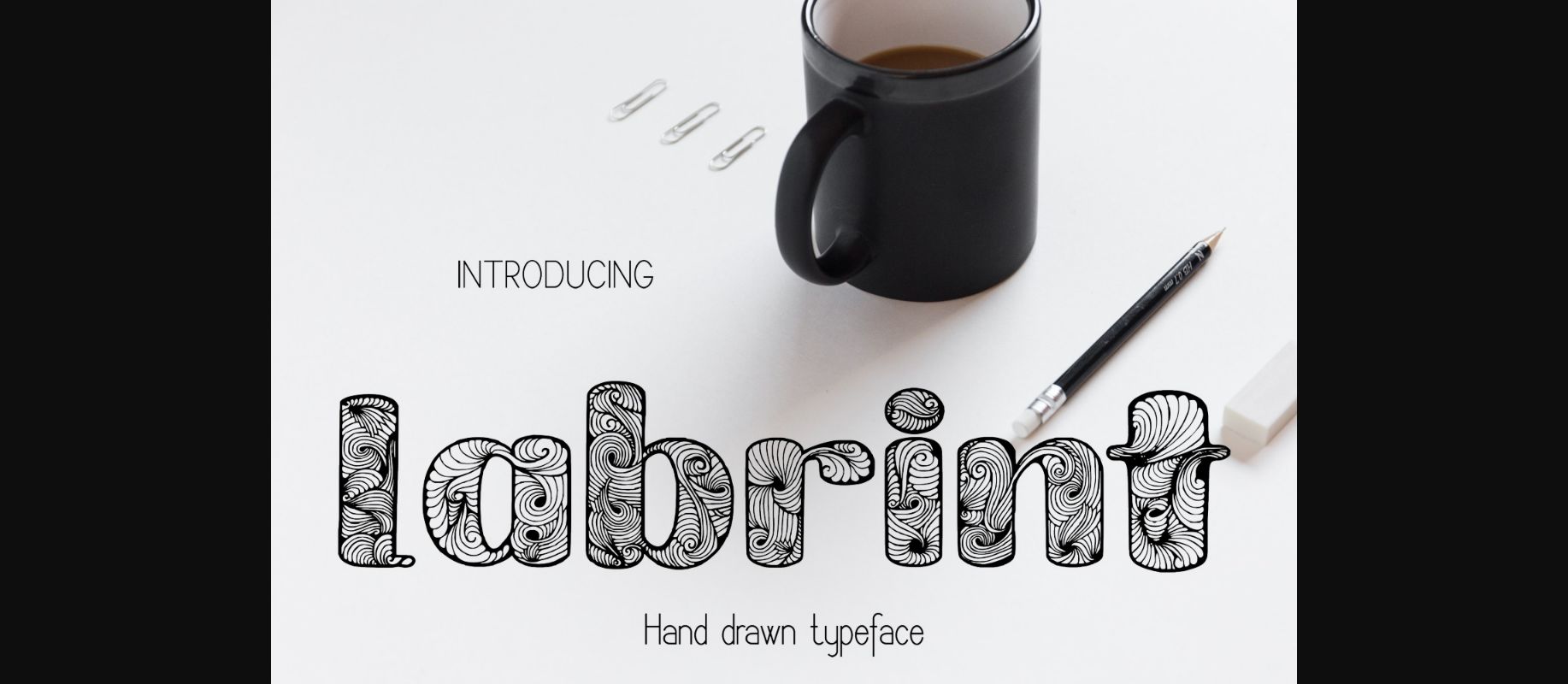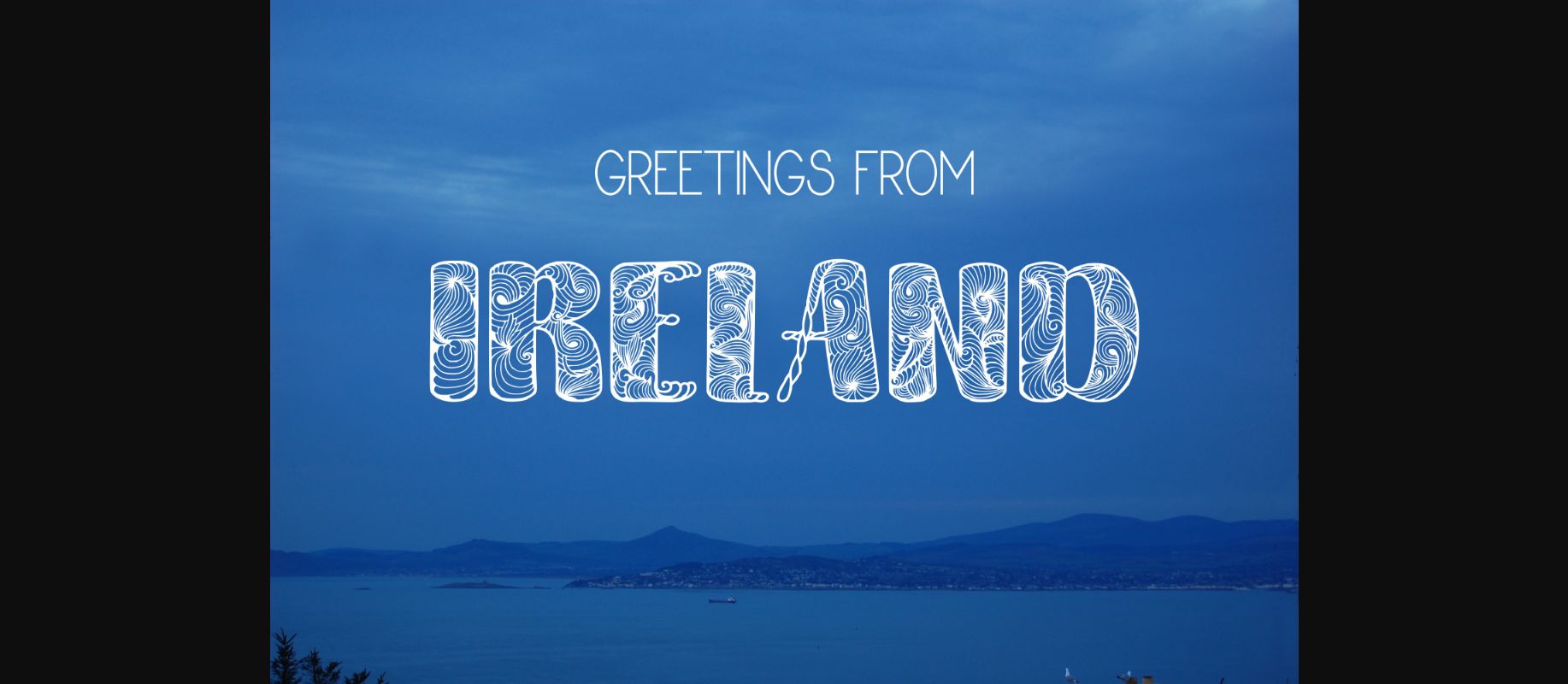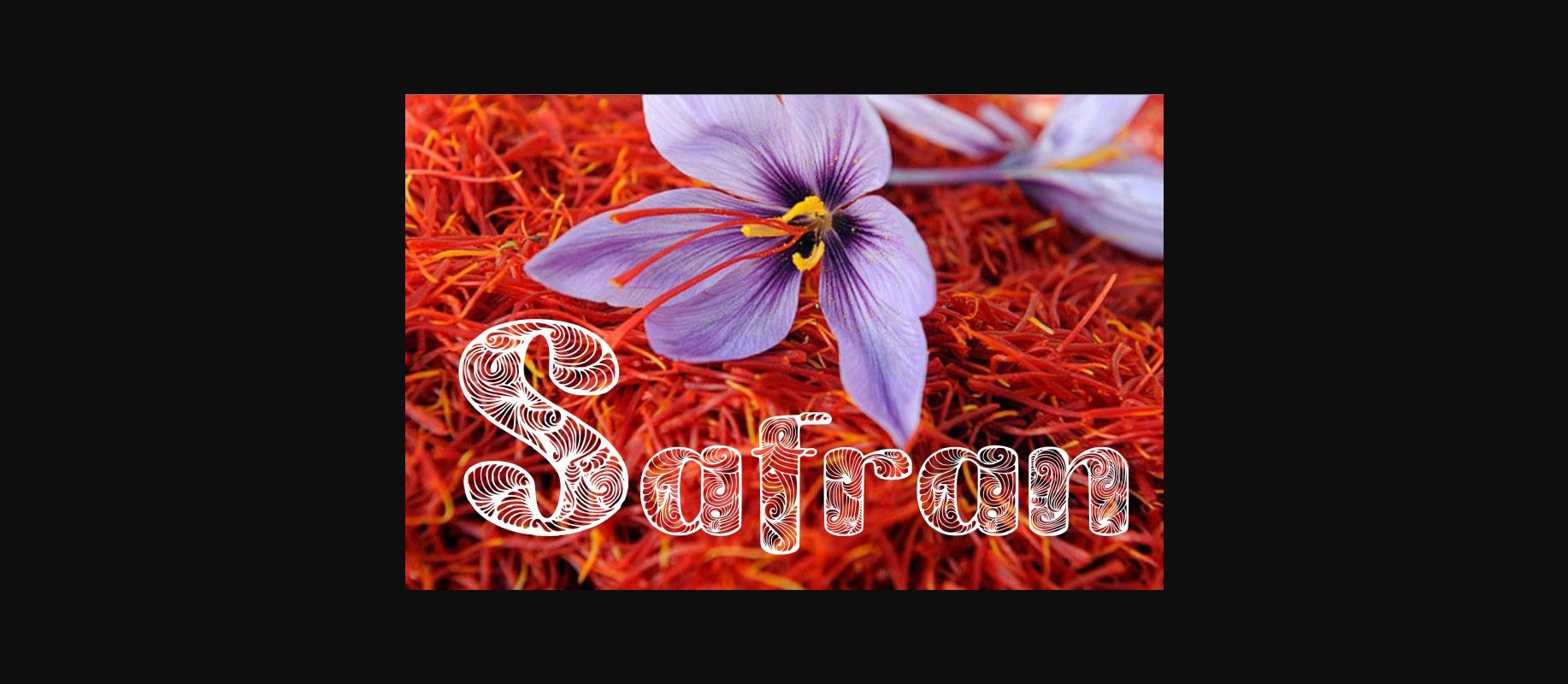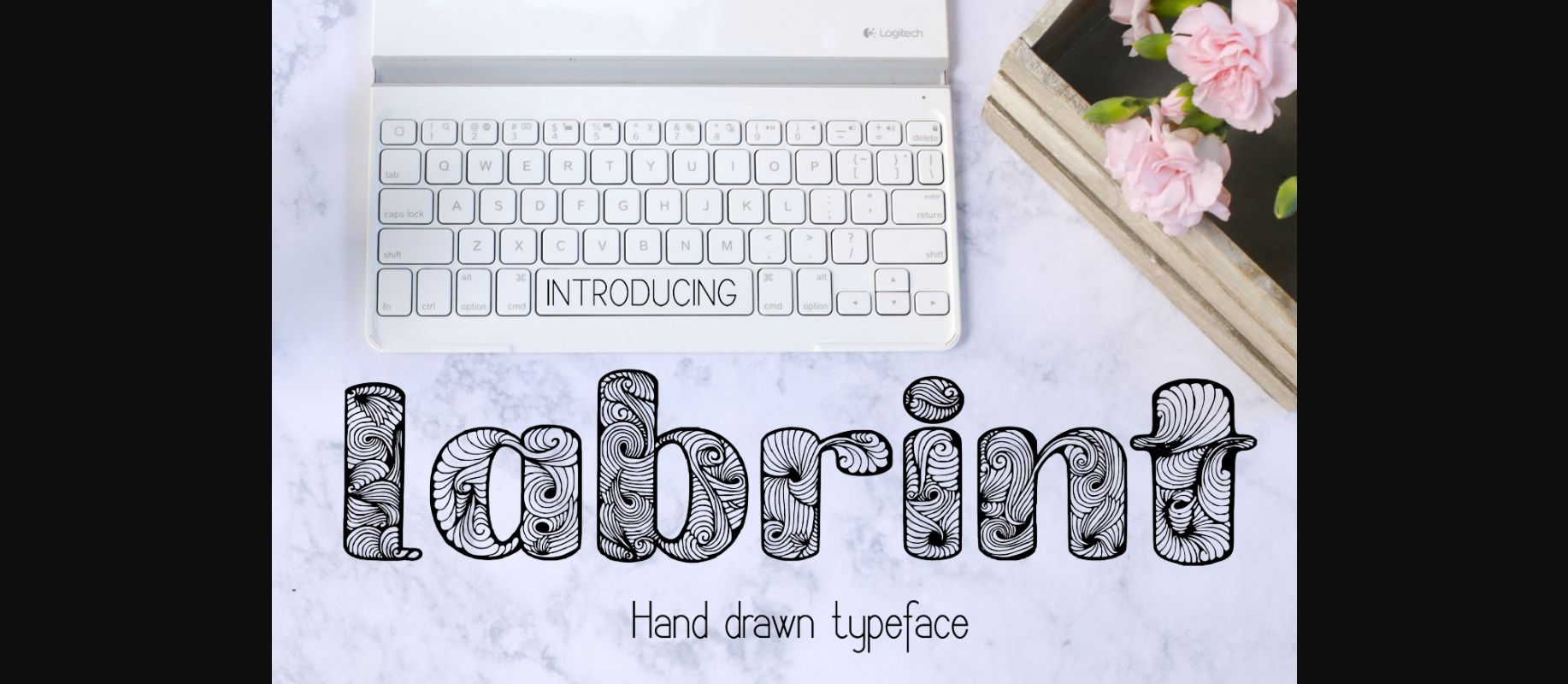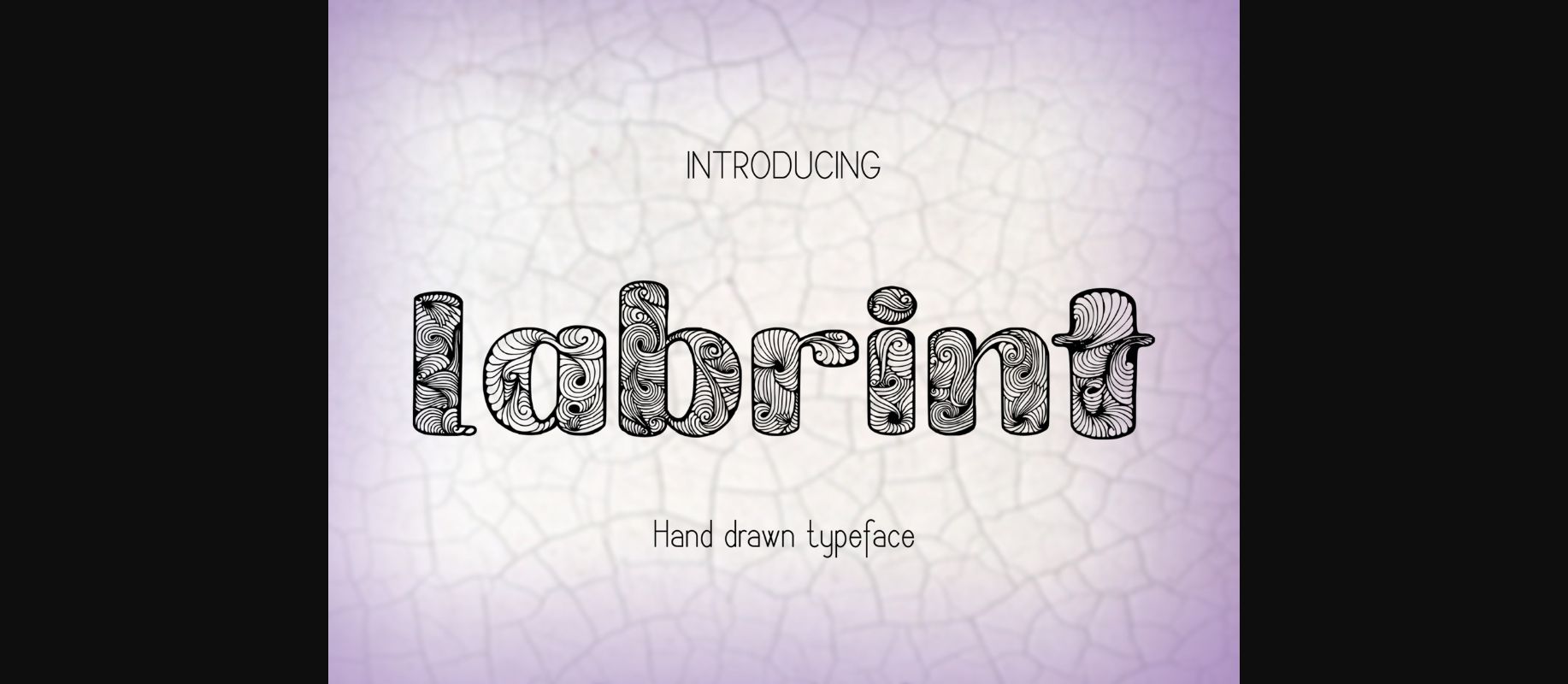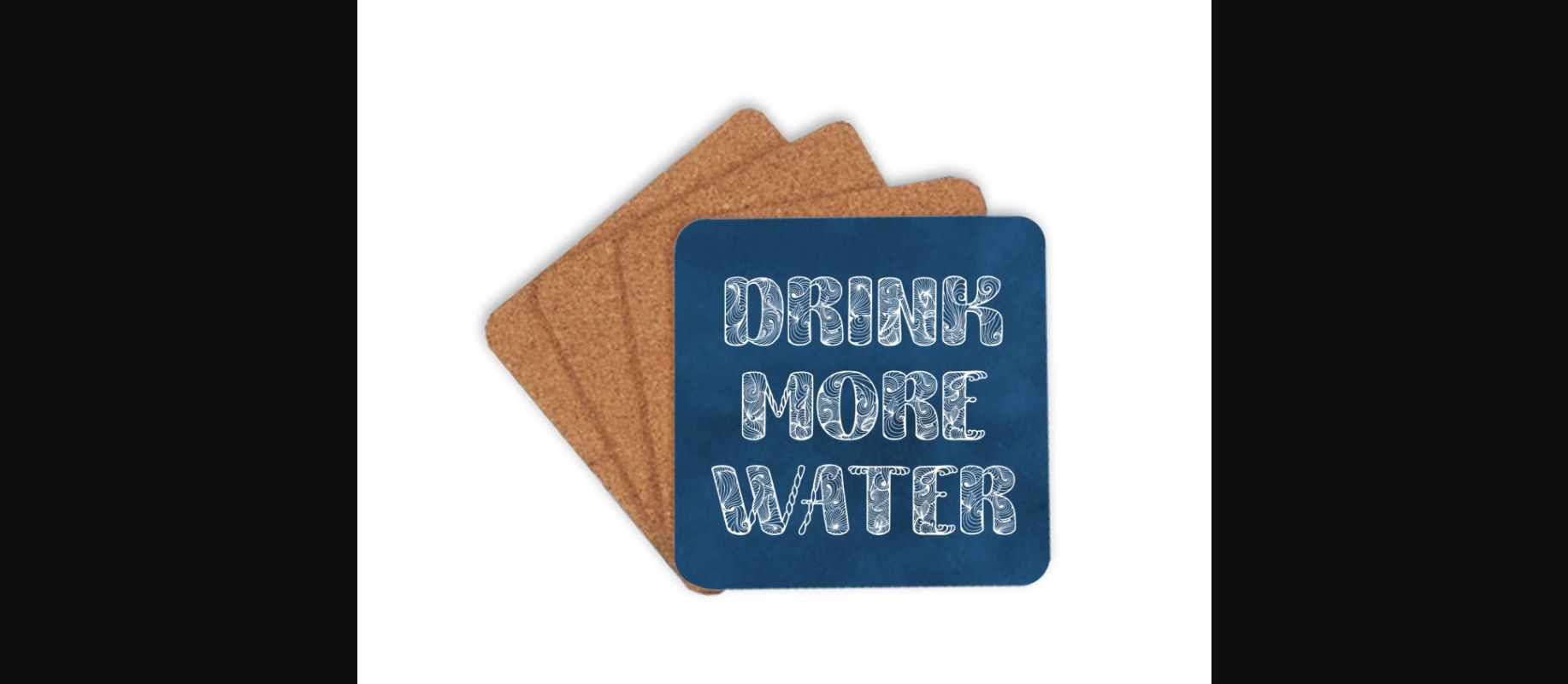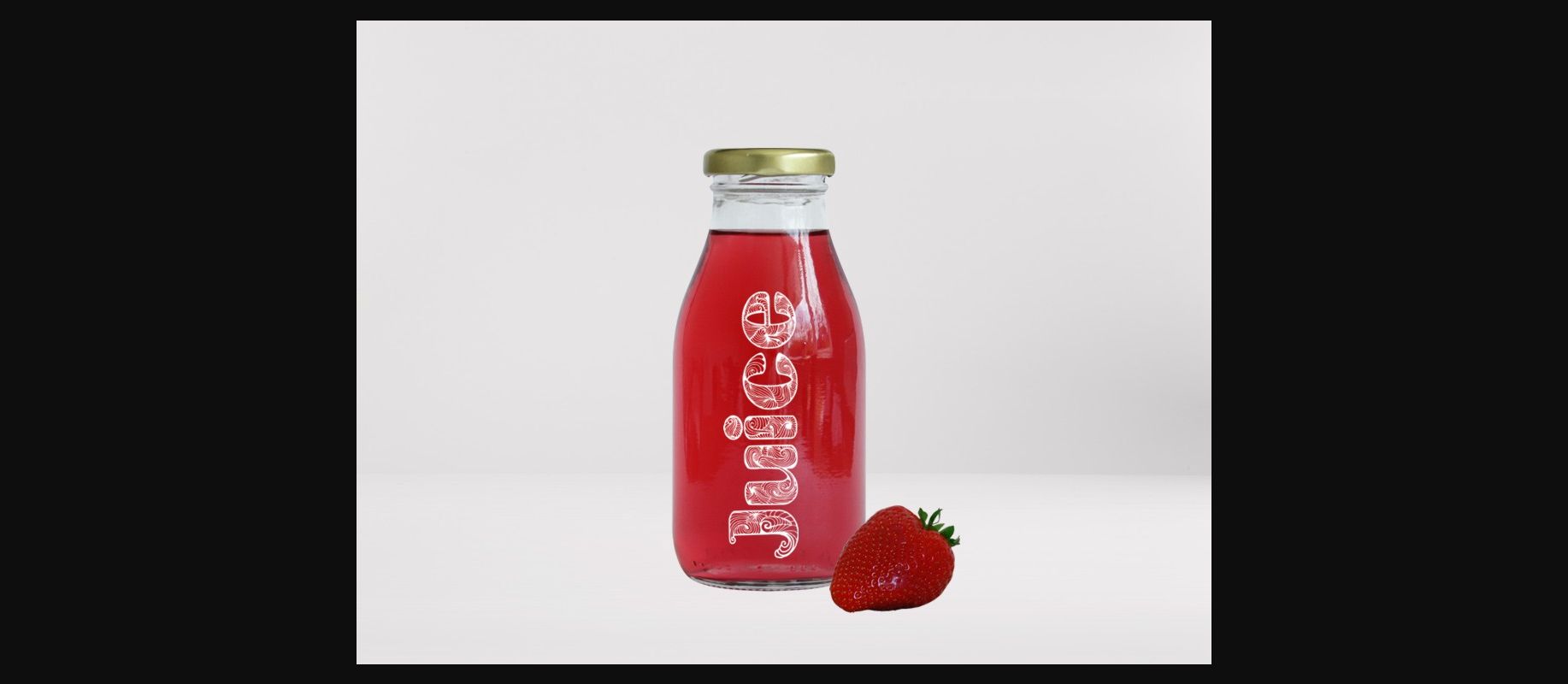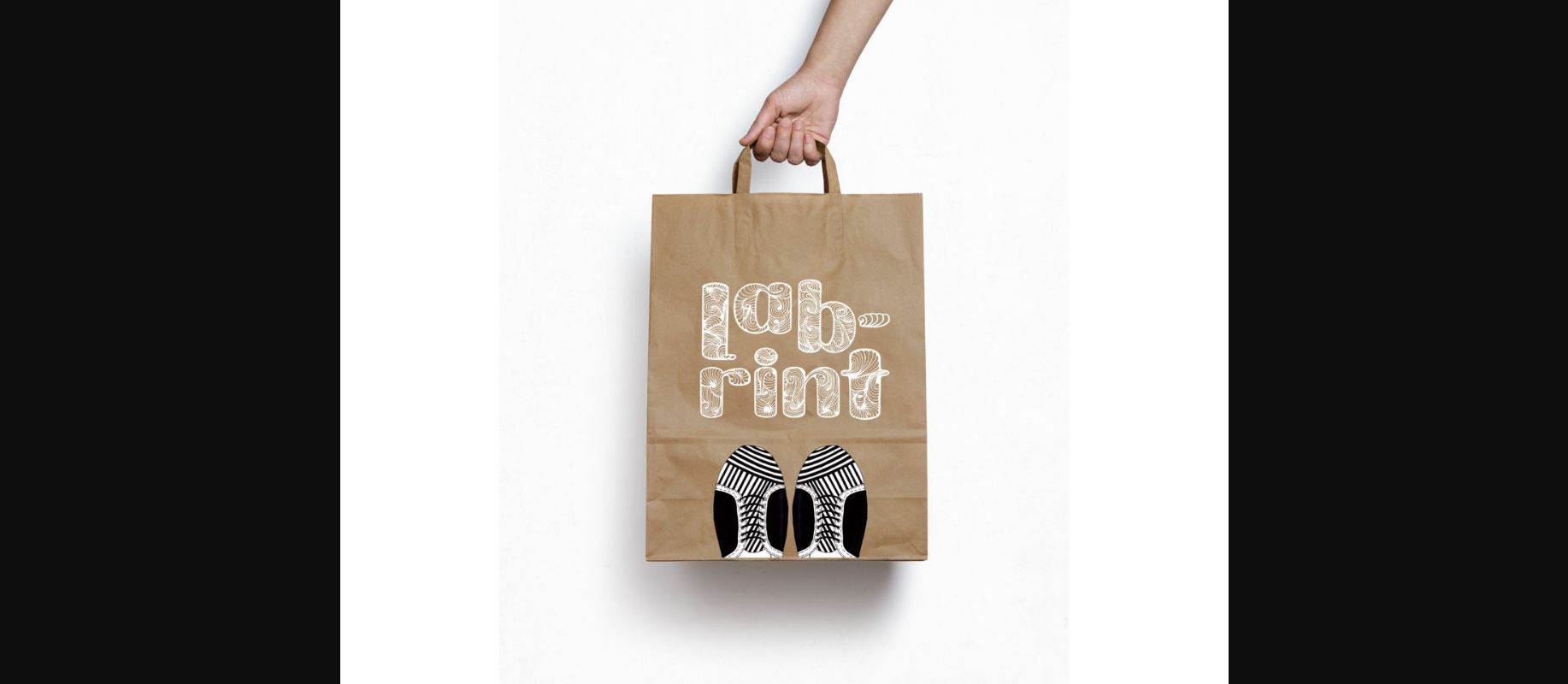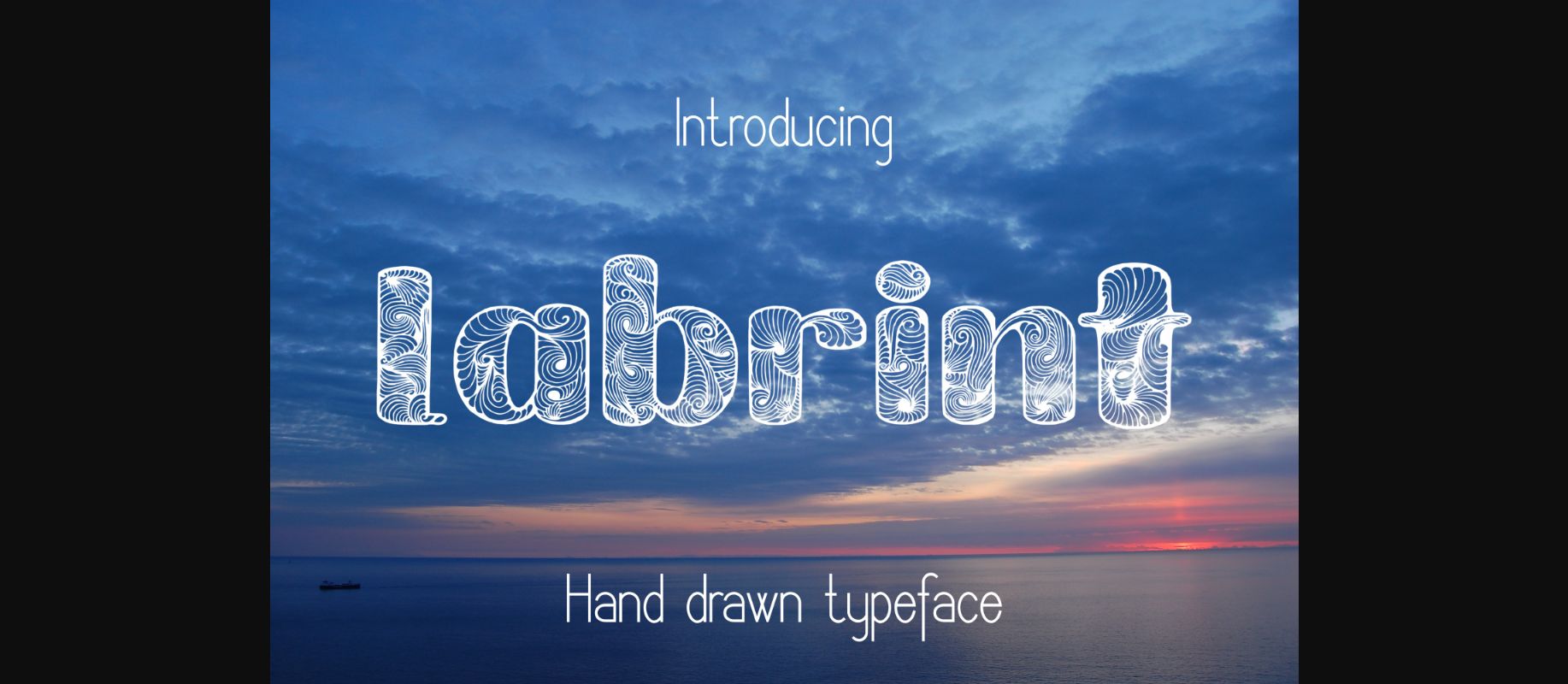
HomeDecorative FontsLabrint Font Decorative Fonts Labrint Font FacebookXPinterestWhatsApp 1 of 9 About Labrint Font Labrint is a decorative floral font. Labrint was created using a drawing tablet. DOWNLOAD NOW People also explored Easy Font Younger Font Haisthy Font Bellafino Font Mellony Font Aficionado Humble Font Dindar Font Podo Moro Font 326 0 TagsLabrintLabrint Font Previous articleBllody Rainan FontNext articleClutch Font LEAVE A REPLY Cancel reply Comment: Please enter your comment! Name:* Please enter your name here Email:* You have entered an incorrect email address! Please enter your email address here Website: Save my name, email, and website in this browser for the next time I comment. Personal Use Free Angelika Playful Personal Use Free Read more about this font Shawaki Personal Use Free Read more about this font BD AsciiMax Personal Use Free Read more about this font Carrolina Personal Use Free Read more about this font BLOG Transform Your Website: Elevate Your Typography with 7 Best Web Font Generators Are you ready to transform your website's typography from ordinary to extraordinary? Great! Today, we're diving into the world of web font generators, which... Exploring Font Trends How to Cut Any Font on Cricut: Convert a Font to SVG (Free) Best Fonts for YouTube Videos: Make Your Thumbnails Stand Out